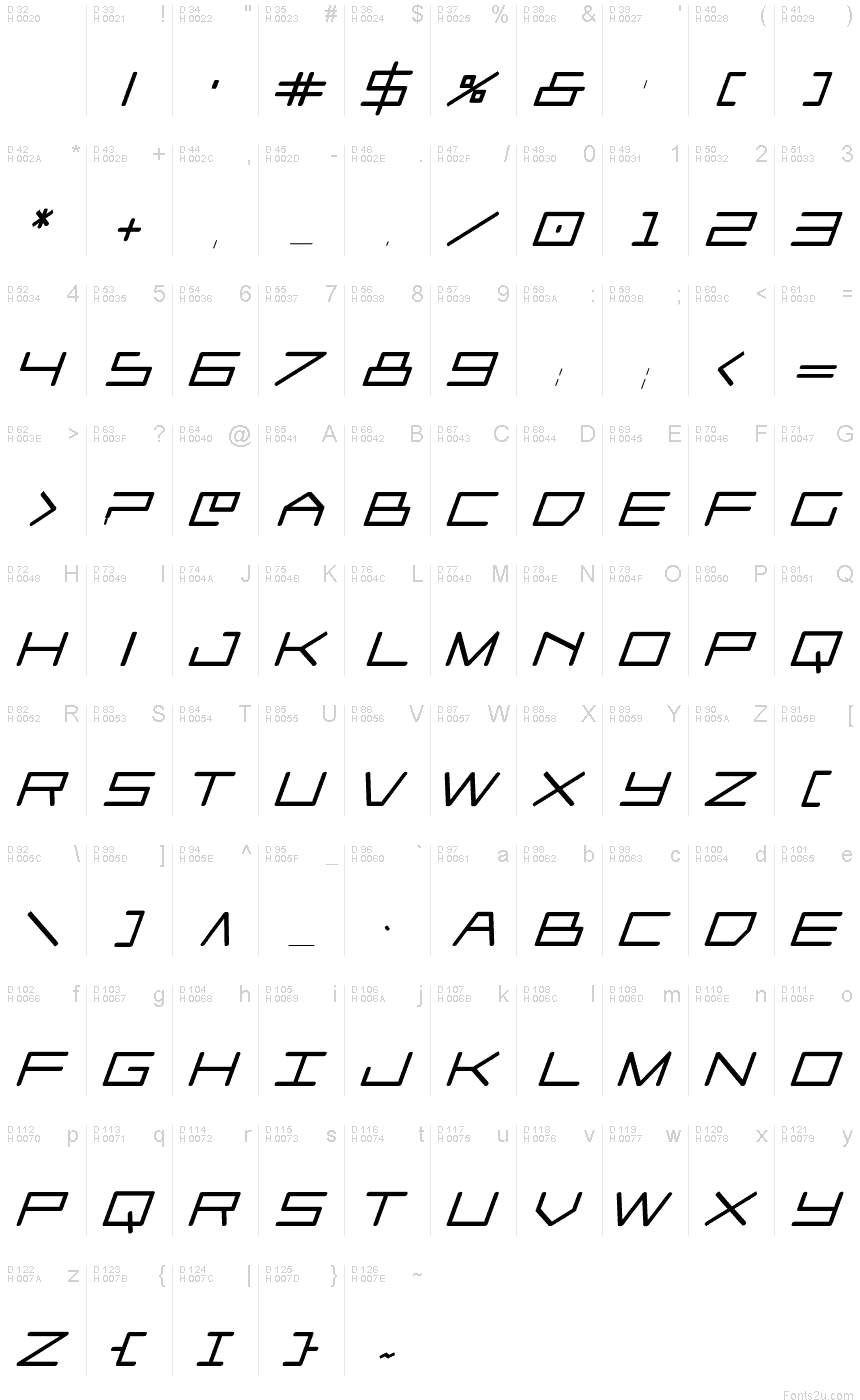
Player 1 Up Black Italic by Daniel Zadorozny of Iconian Fonts is a free extended geometric sans serif with a sleek science-fiction edge. Its sharply angled letters use long horizontal runs and clipped joins to produce a fast, technical silhouette with very little stroke contrast.
Designers working in gaming, futuristic entertainment, or electronic music will find a clear match for title cards and event posters. The broad forms also suit esports branding and merchandise, especially when the lettering echoes vehicle graphics or interface markings. Its strongest audience is viewers accustomed to arcade racers, sci-fi hardware, and competitive gaming graphics.